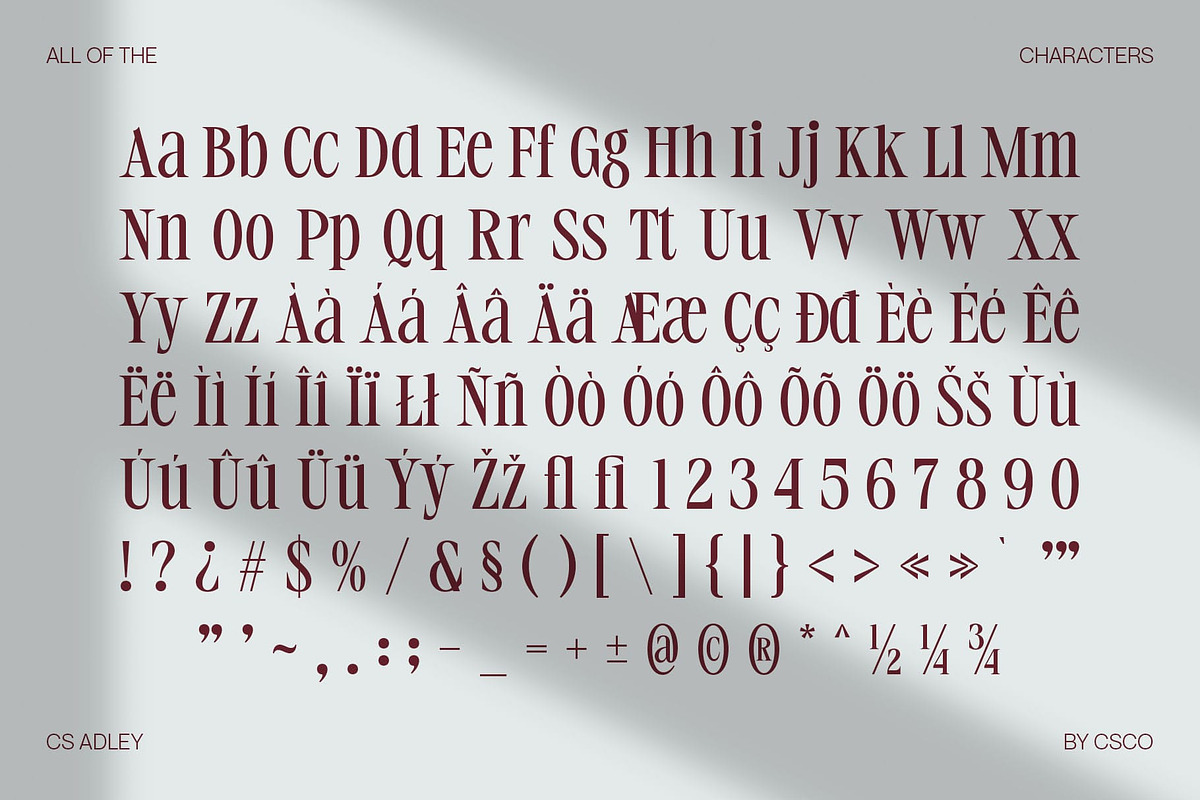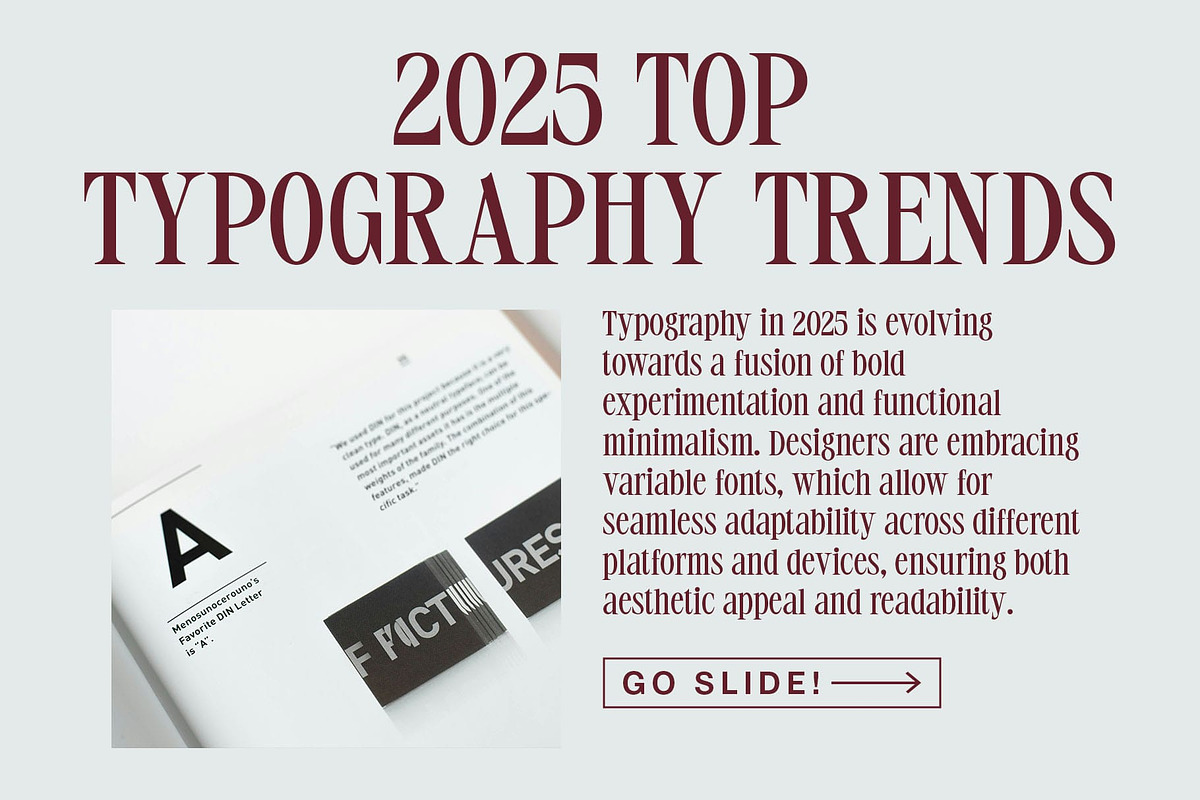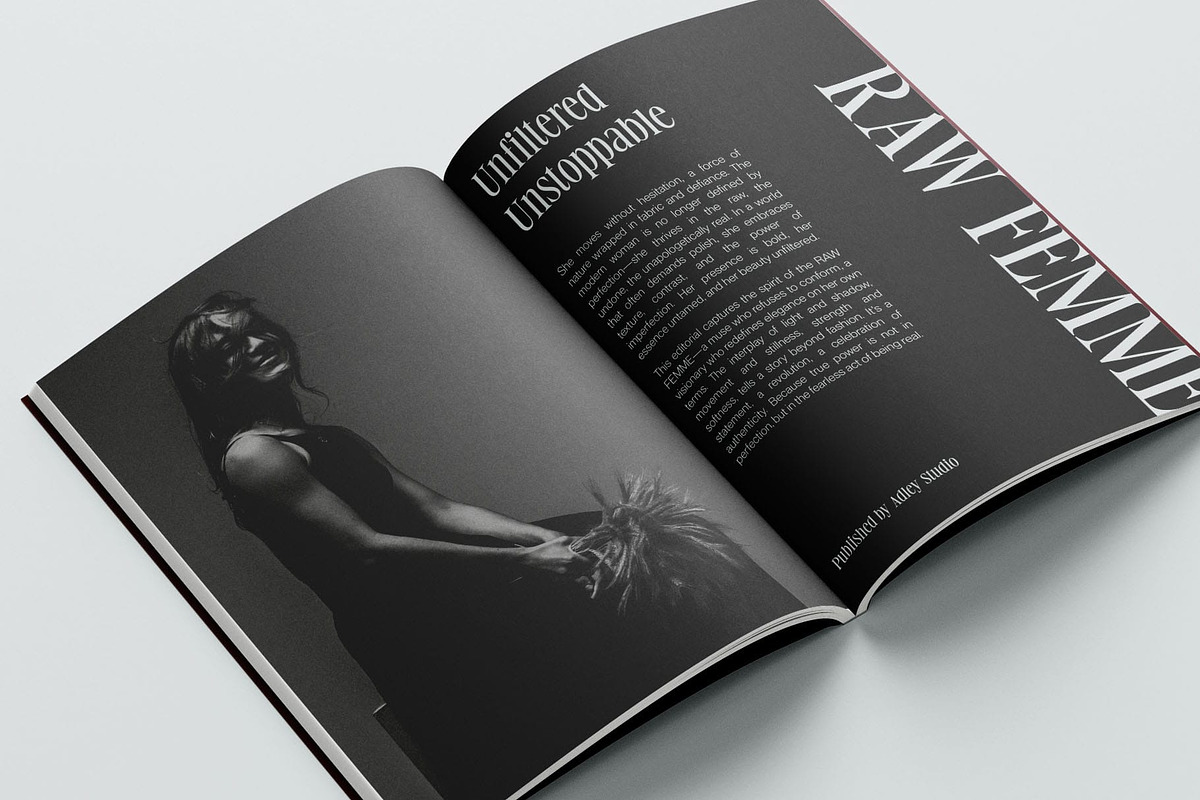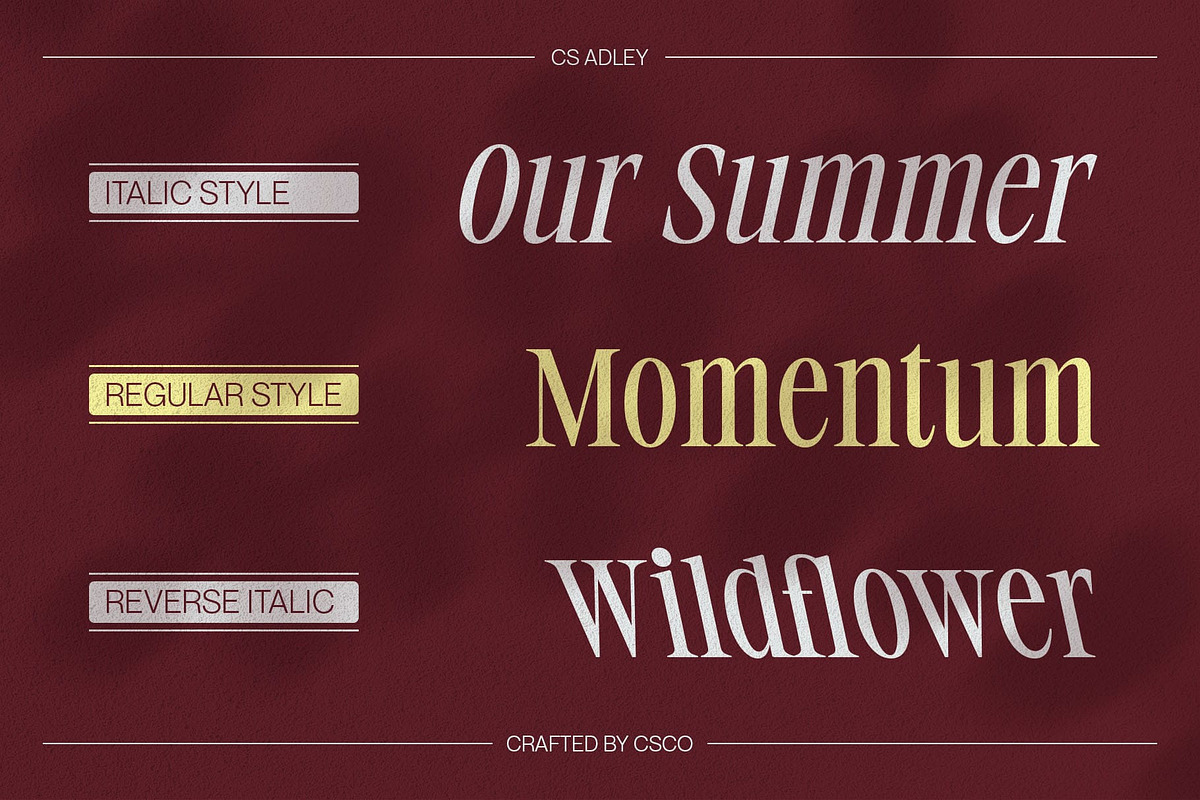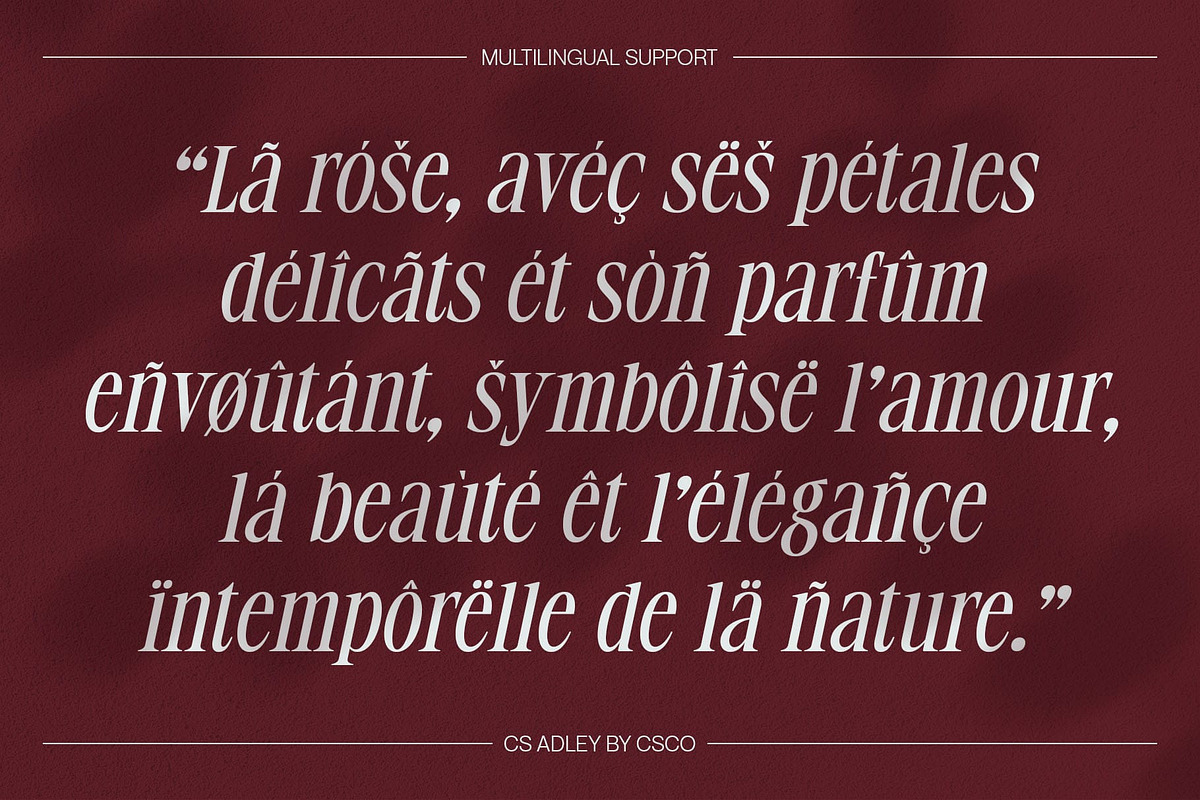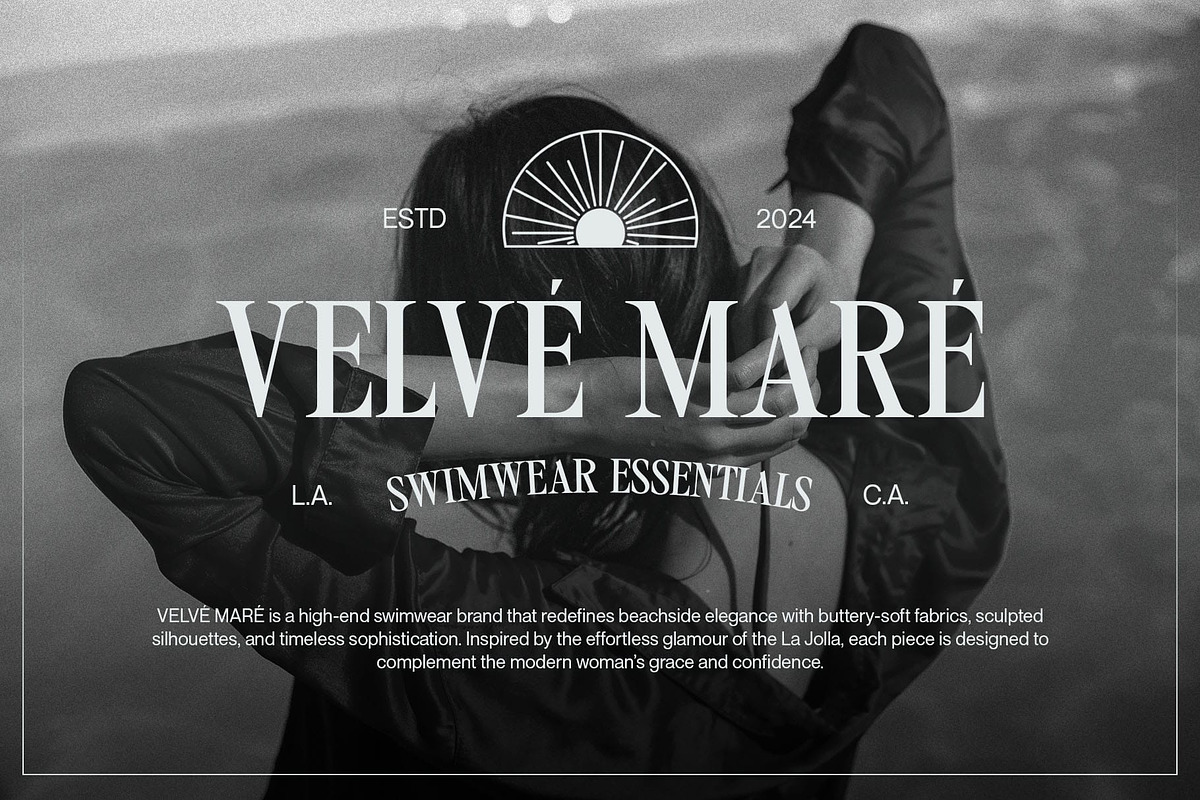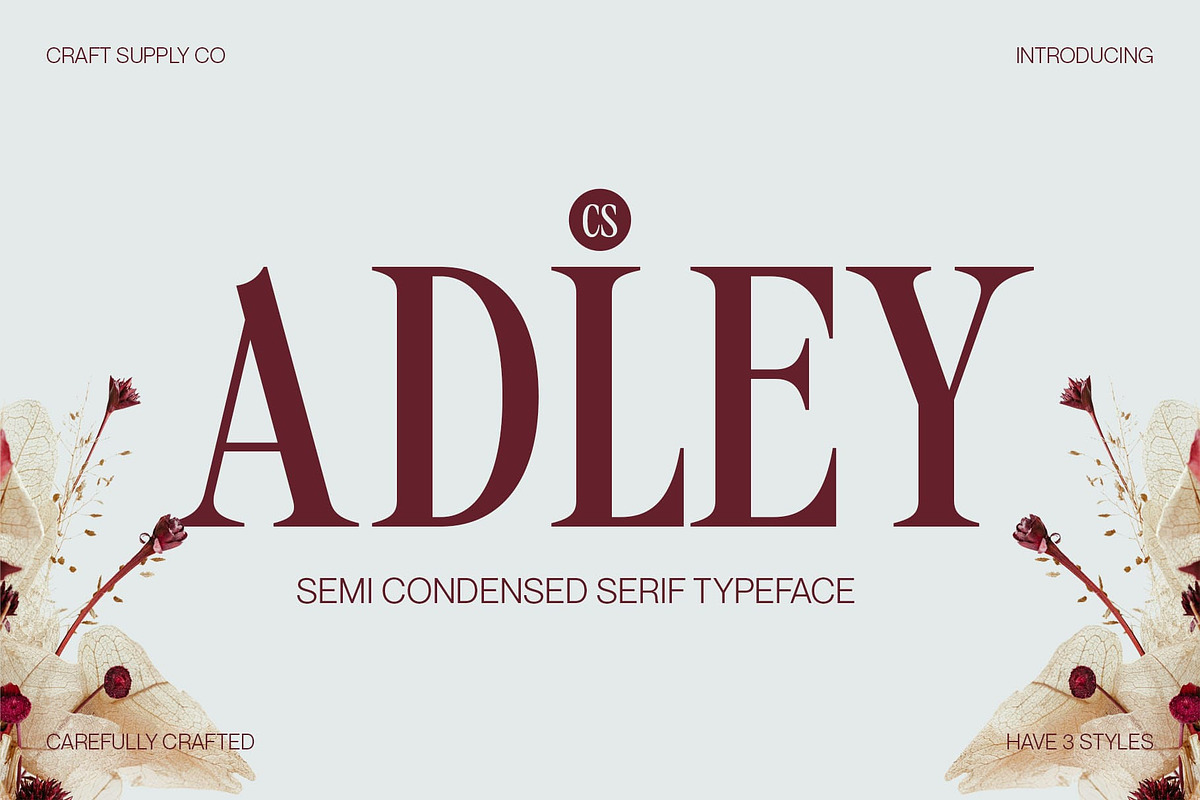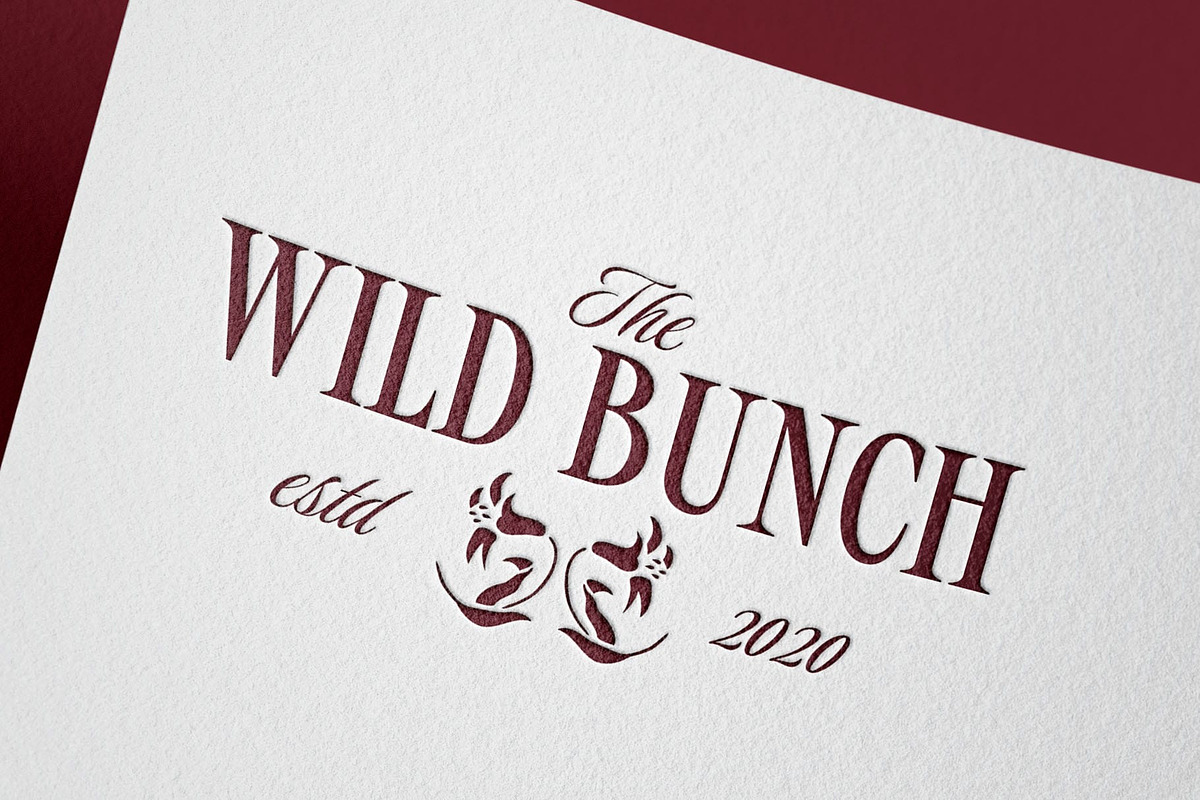
CS Adley – Elegant Font
CS Adley – Elegant Font: A Sophisticated Serif for Timeless Designs
Elegant Serif with a Modern Touch CS Adley – Elegant Font is a sophisticated serif typeface that blends classic elegance with a sleek modern touch. Featuring elongated serifs and refined proportions, this font radiates a sense of luxury and professionalism. Its smooth curves and sharp details create a visually striking balance, making it an excellent choice for high-end branding, editorial layouts, and exclusive packaging.
Refined Proportions for a Luxurious Aesthetic The well-crafted letterforms of CS Adley exude a sense of grace and refinement, with subtle details that enhance readability while maintaining a distinctive personality. Its timeless aesthetic makes it suitable for elegant typography, offering a touch of opulence to any design. Whether used in headlines or body text, its sophisticated charm ensures a polished and upscale look.
Versatile for High-End Design Applications Designed for luxury branding, fashion magazines, and editorial projects, CS Adley adds an aura of exclusivity to visual compositions. The font’s high contrast and delicate structure provide an air of prestige, making it ideal for logo design, advertising campaigns, and corporate identities that require a refined touch.
Perfect for Branding and Editorial Work CS Adley is versatile enough to complement both modern and classic designs. It works seamlessly across digital and print media, delivering a captivating and professional appearance.
- CS Adley Regular
- CS Adley Italic
- CS Adley Reverse Italic